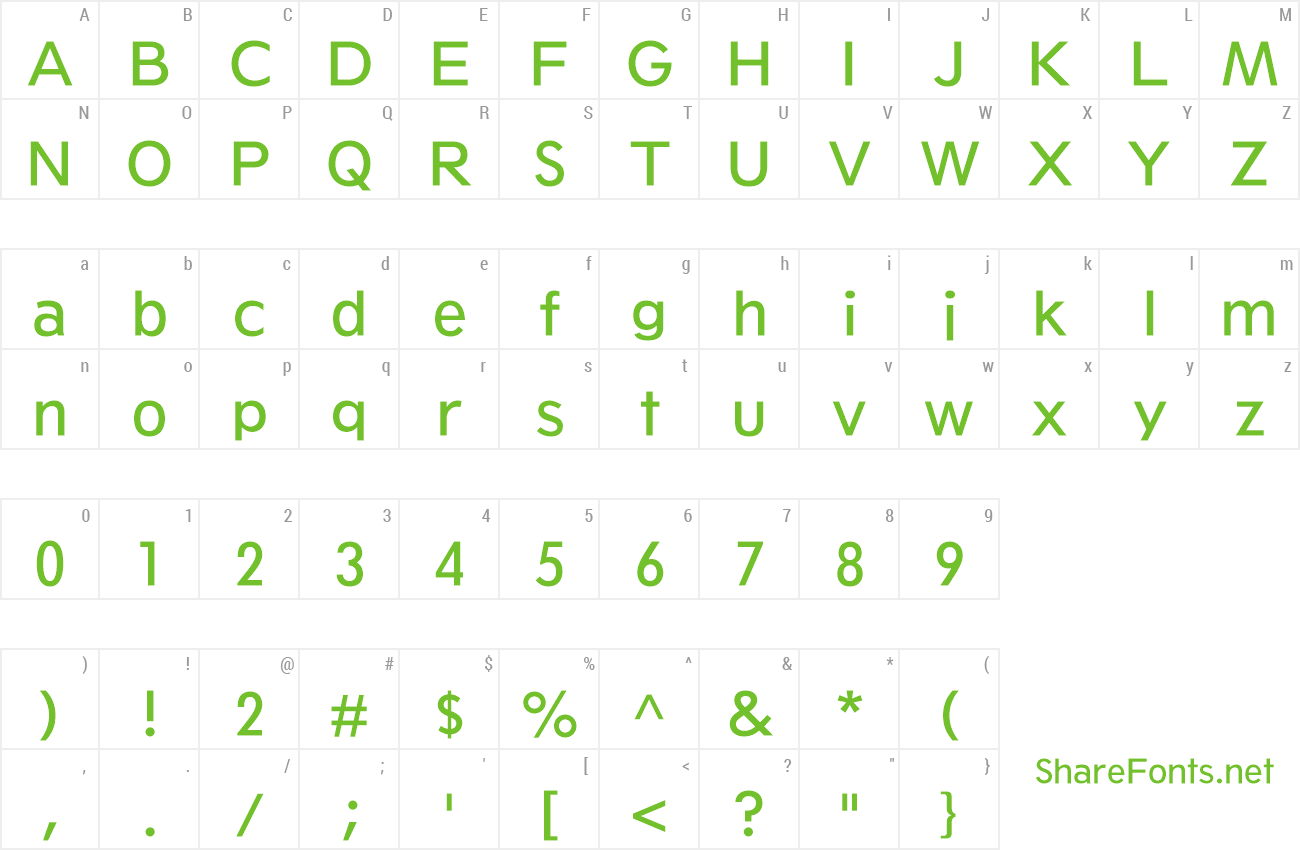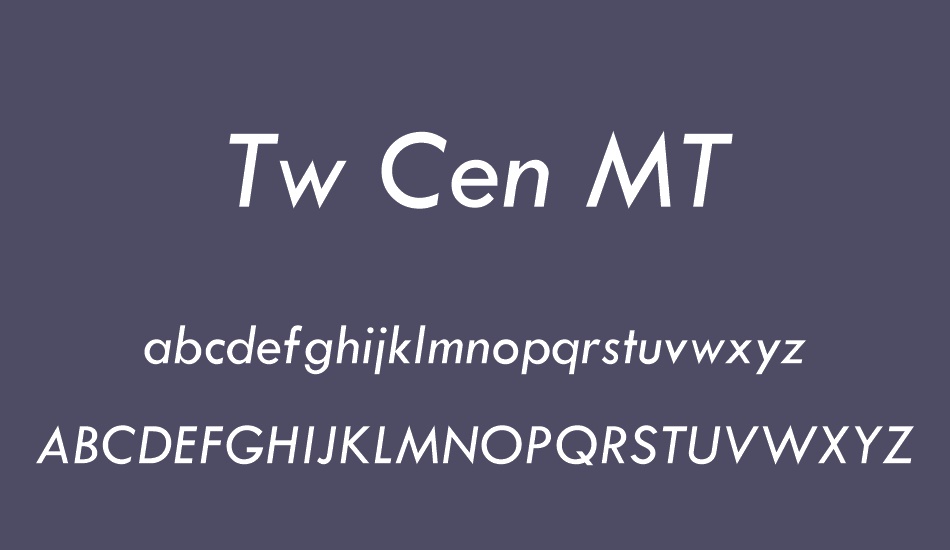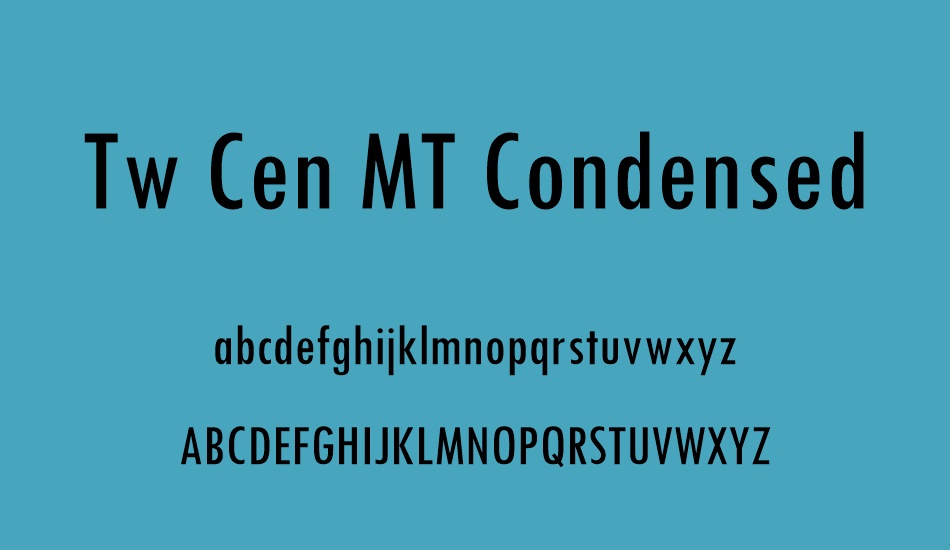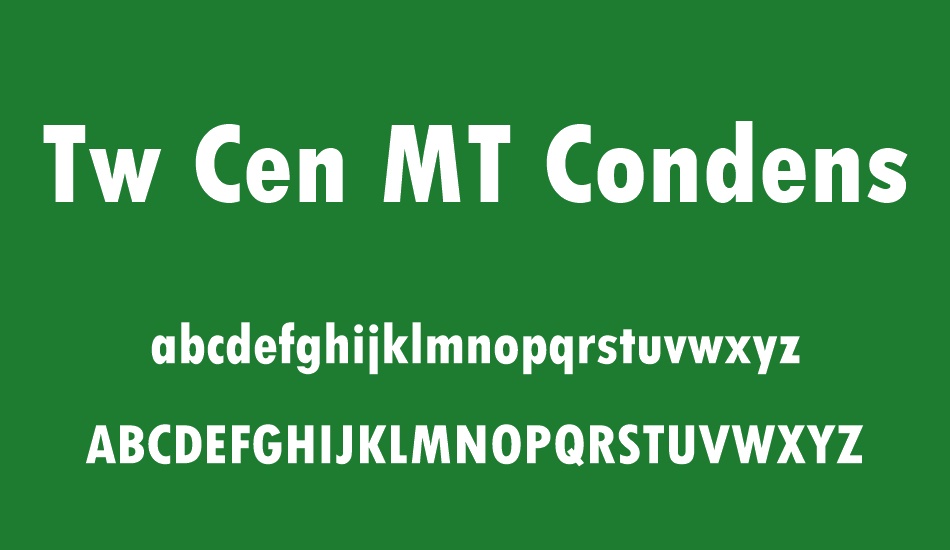
Tw Century Mt Font
Tw Century Mt Font - Web the 20th century was designed and drawn by sol hess within the lanston truetype drawing office between 1936 and 1947. This browser is no longer supported. Web typographic info for the tw cen mt font family. Moreover, you can embed it to your website. Web tw cen mt font is an bold typefaec that is known for its bold and italic function. This black font is available for free, bold fonts. Upgrade to microsoft edge to take advantage of the latest features, security updates, and. Today we are going to present before you the. The primary weights had been added to the monotype typeface library in 1959. Moreover, you can embed it to your website.
Web the 20th century was designed and drawn by sol hess within the lanston truetype drawing office between 1936 and 1947. This browser is no longer supported. Moreover, you can embed it to your website. The primary weights had been added to the monotype typeface library in 1959. Web tw cen mt font is an bold typefaec that is known for its bold and italic function. This black font is available for free, bold fonts. Moreover, you can embed it to your website. Web typographic info for the tw cen mt font family. Upgrade to microsoft edge to take advantage of the latest features, security updates, and. Today we are going to present before you the.
Web the 20th century was designed and drawn by sol hess within the lanston truetype drawing office between 1936 and 1947. The primary weights had been added to the monotype typeface library in 1959. This browser is no longer supported. Moreover, you can embed it to your website. Web typographic info for the tw cen mt font family. This black font is available for free, bold fonts. Today we are going to present before you the. Web tw cen mt font is an bold typefaec that is known for its bold and italic function. Moreover, you can embed it to your website. Upgrade to microsoft edge to take advantage of the latest features, security updates, and.
Tw Cen MT Font Download Free for Desktop & Webfont
Tw Cen MT Condensed Extra Bold font font
This black font is available for free, bold fonts. Web the 20th century was designed and drawn by sol hess within the lanston truetype drawing office between 1936 and 1947. Web typographic info for the tw cen mt font family. Moreover, you can embed it to your website. The primary weights had been added to the monotype typeface library in.
Tw Cen Mt Font Download
Web the 20th century was designed and drawn by sol hess within the lanston truetype drawing office between 1936 and 1947. Today we are going to present before you the. Web typographic info for the tw cen mt font family. The primary weights had been added to the monotype typeface library in 1959. This black font is available for free,.
Tw Cen MT font Font Tr
Tw Cen MT Regular truetype font
This browser is no longer supported. This black font is available for free, bold fonts. The primary weights had been added to the monotype typeface library in 1959. Web tw cen mt font is an bold typefaec that is known for its bold and italic function. Web the 20th century was designed and drawn by sol hess within the lanston.
Tw Cen MT Condensed free font
Tw Cen MT Condensed Extra Bold free font
Upgrade to microsoft edge to take advantage of the latest features, security updates, and. Moreover, you can embed it to your website. This black font is available for free, bold fonts. Web typographic info for the tw cen mt font family. Web tw cen mt font is an bold typefaec that is known for its bold and italic function.
Download free Tw Cen MT font, free TCMI.ttf Medium Italic font for Windows
The primary weights had been added to the monotype typeface library in 1959. Web the 20th century was designed and drawn by sol hess within the lanston truetype drawing office between 1936 and 1947. This black font is available for free, bold fonts. Web typographic info for the tw cen mt font family. Today we are going to present before.
TW Cen MT Condensed Font
This browser is no longer supported. Web tw cen mt font is an bold typefaec that is known for its bold and italic function. Today we are going to present before you the. This black font is available for free, bold fonts. Web the 20th century was designed and drawn by sol hess within the lanston truetype drawing office between.
Tw cen mt bold font download vlerolion
This black font is available for free, bold fonts. Moreover, you can embed it to your website. Web tw cen mt font is an bold typefaec that is known for its bold and italic function. Upgrade to microsoft edge to take advantage of the latest features, security updates, and. This browser is no longer supported.
The primary weights had been added to the monotype typeface library in 1959. This black font is available for free, bold fonts. Web typographic info for the tw cen mt font family. Today we are going to present before you the.